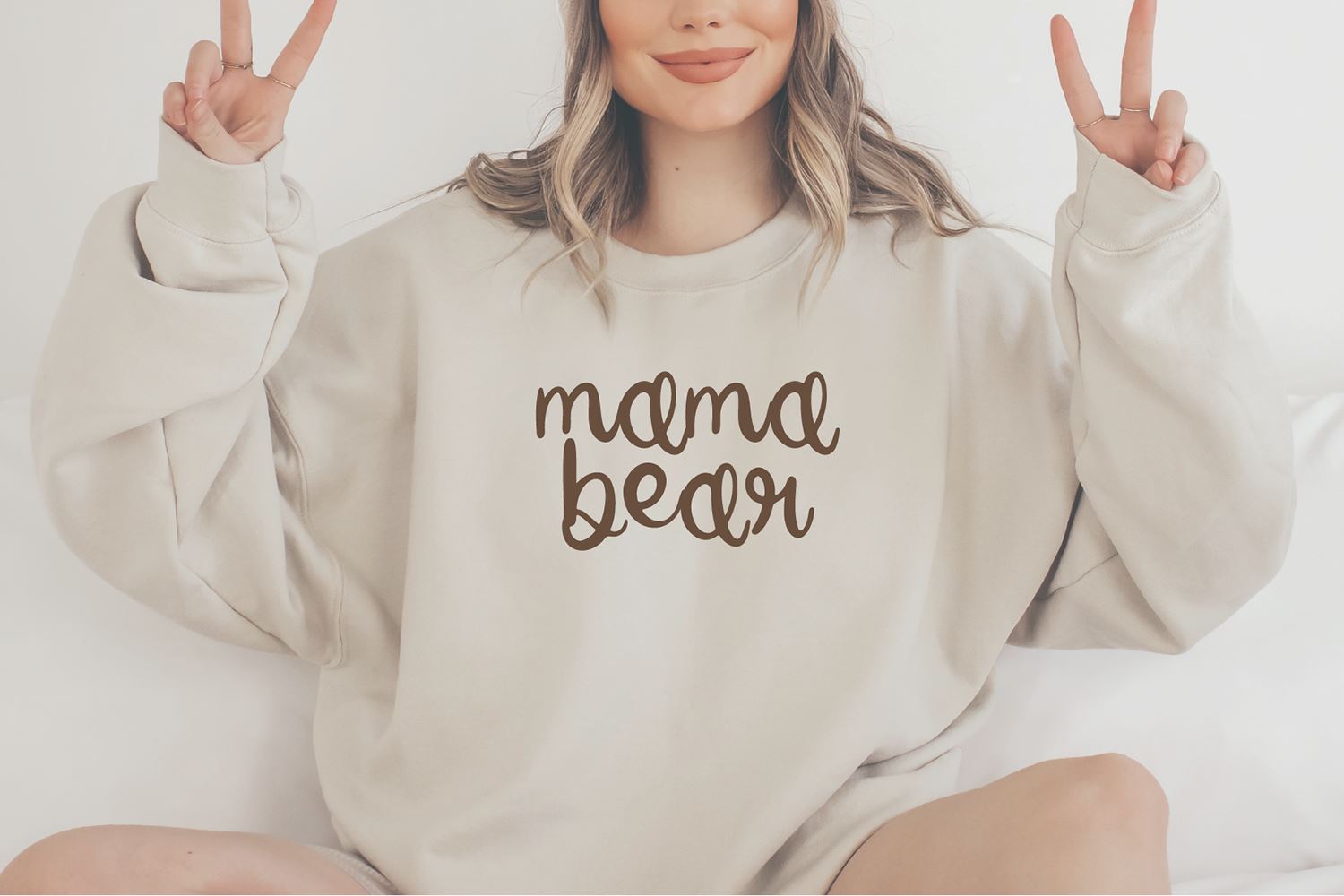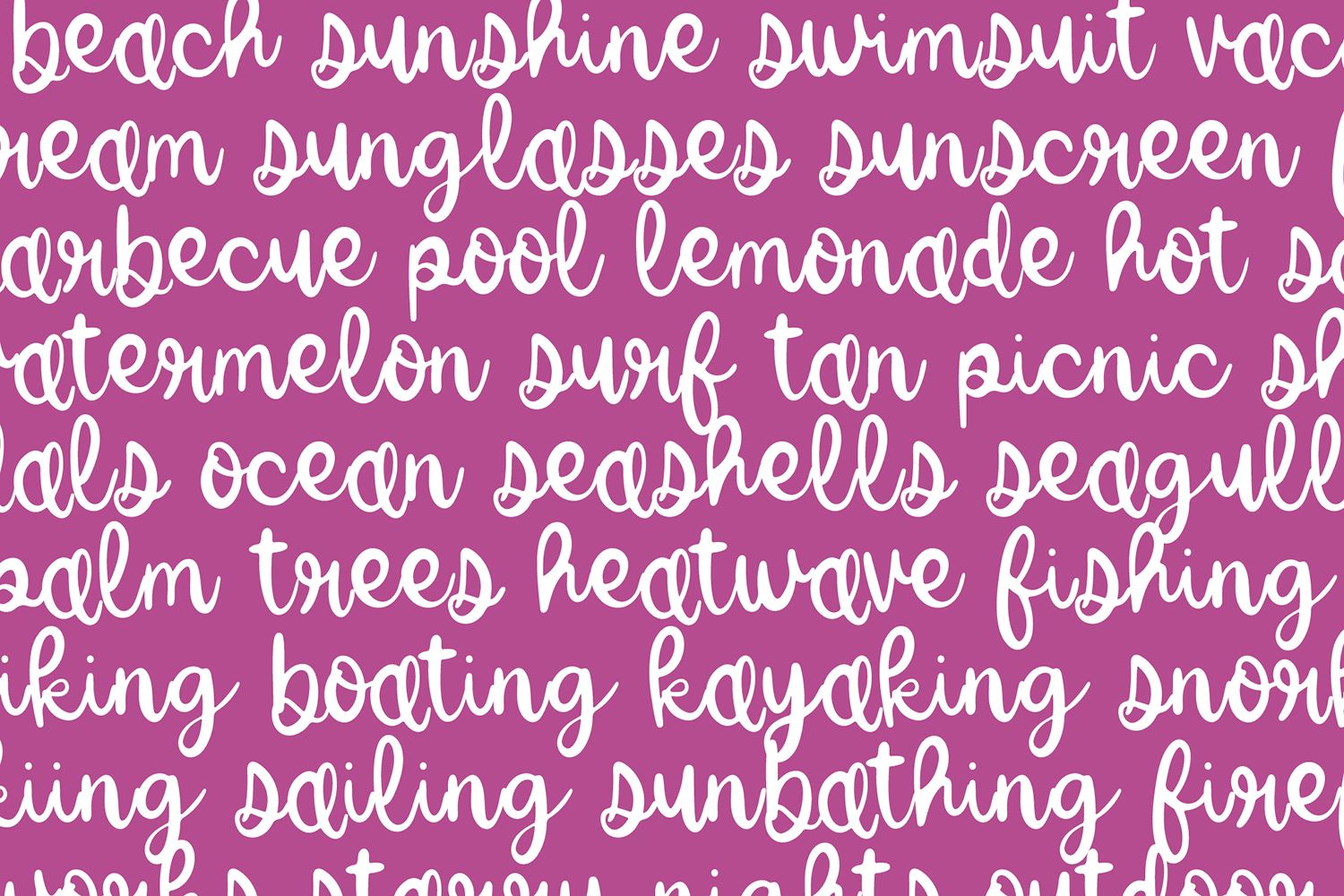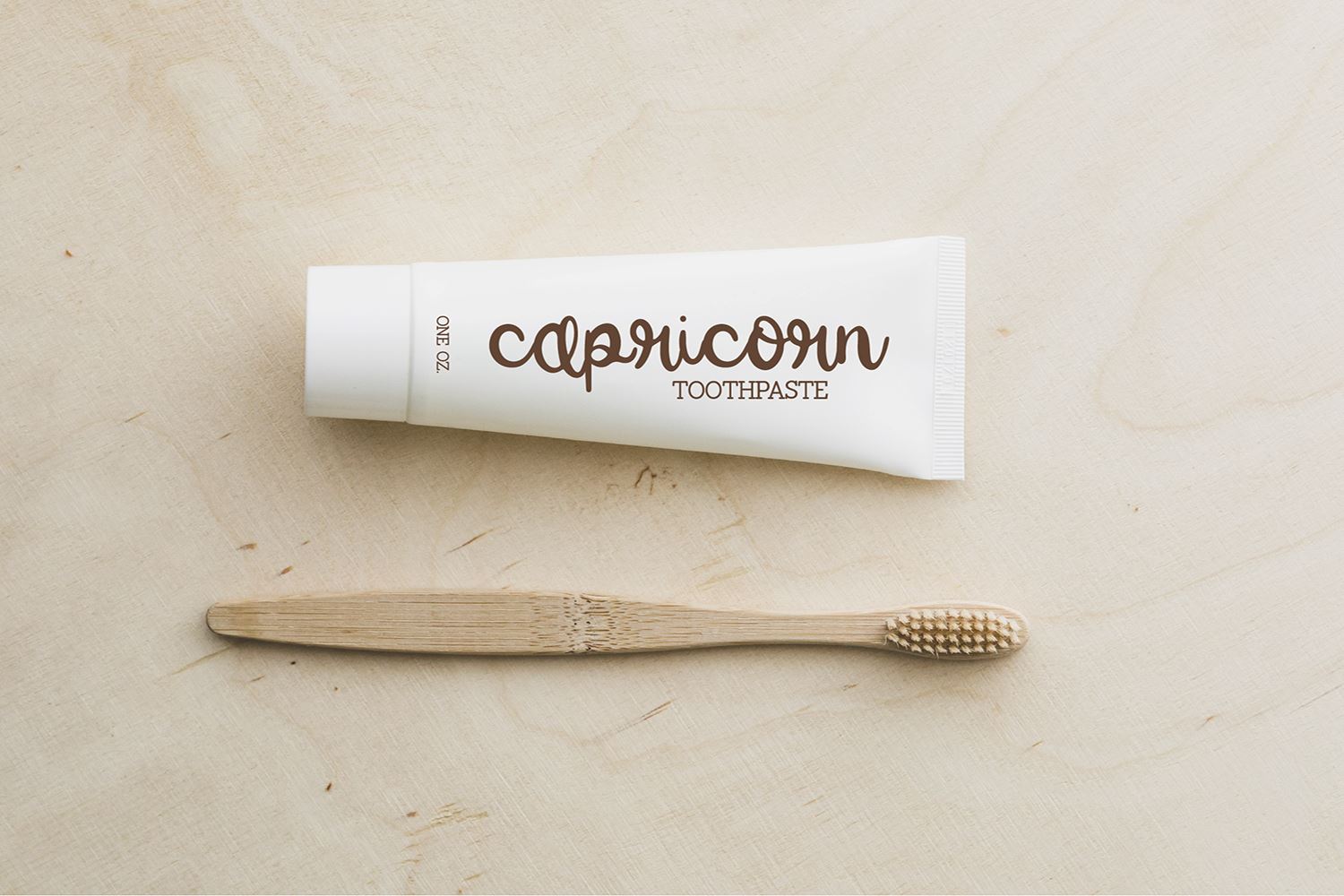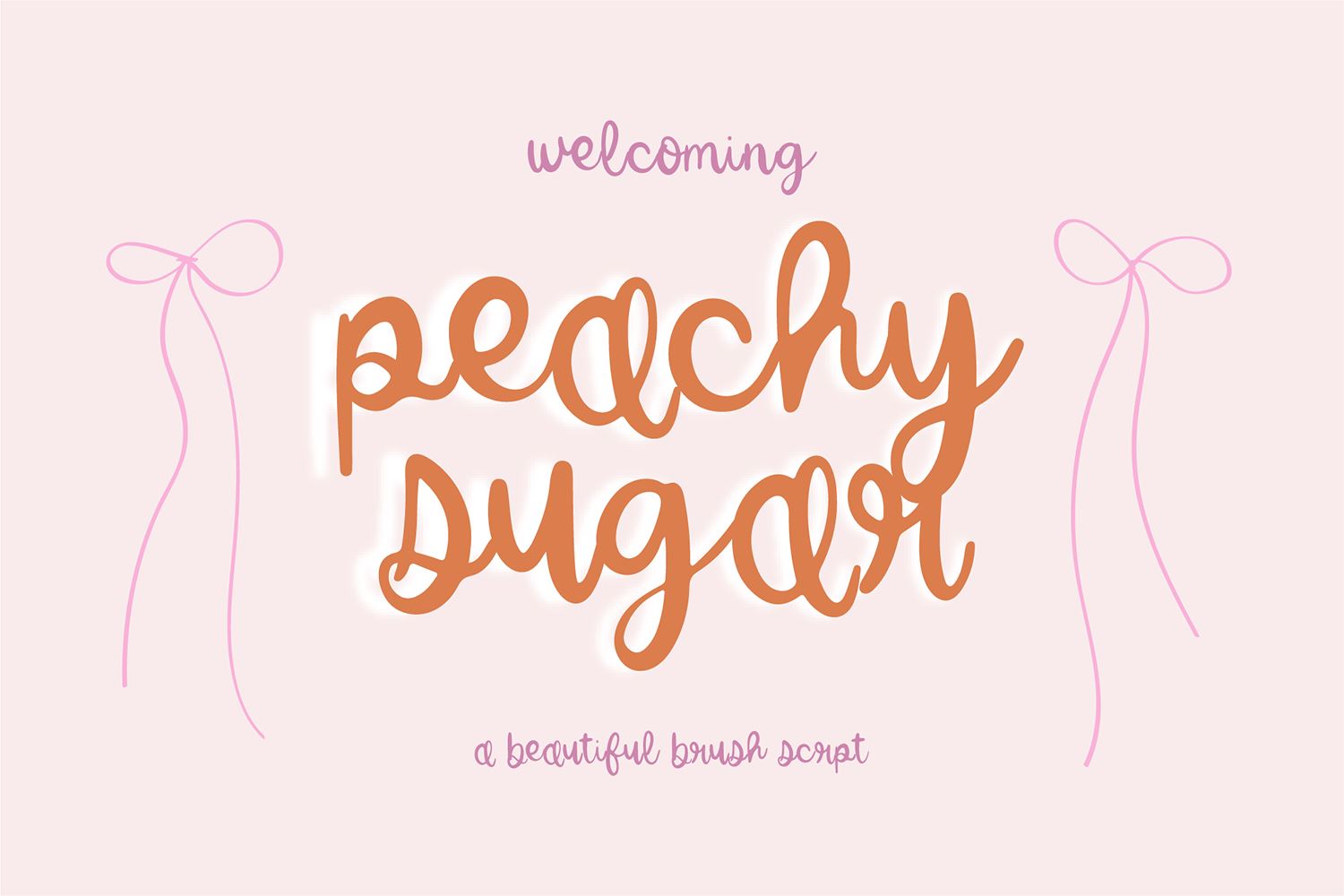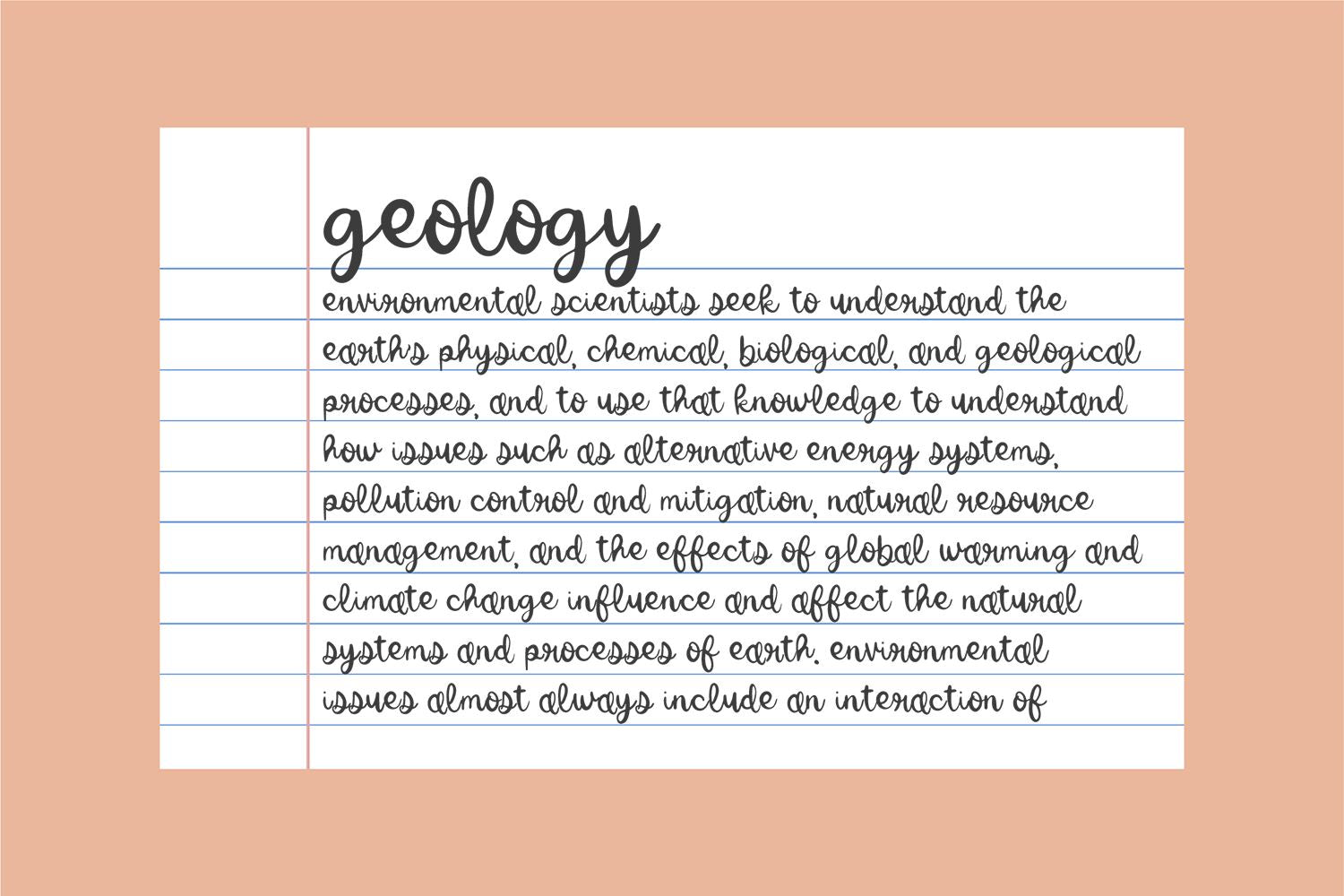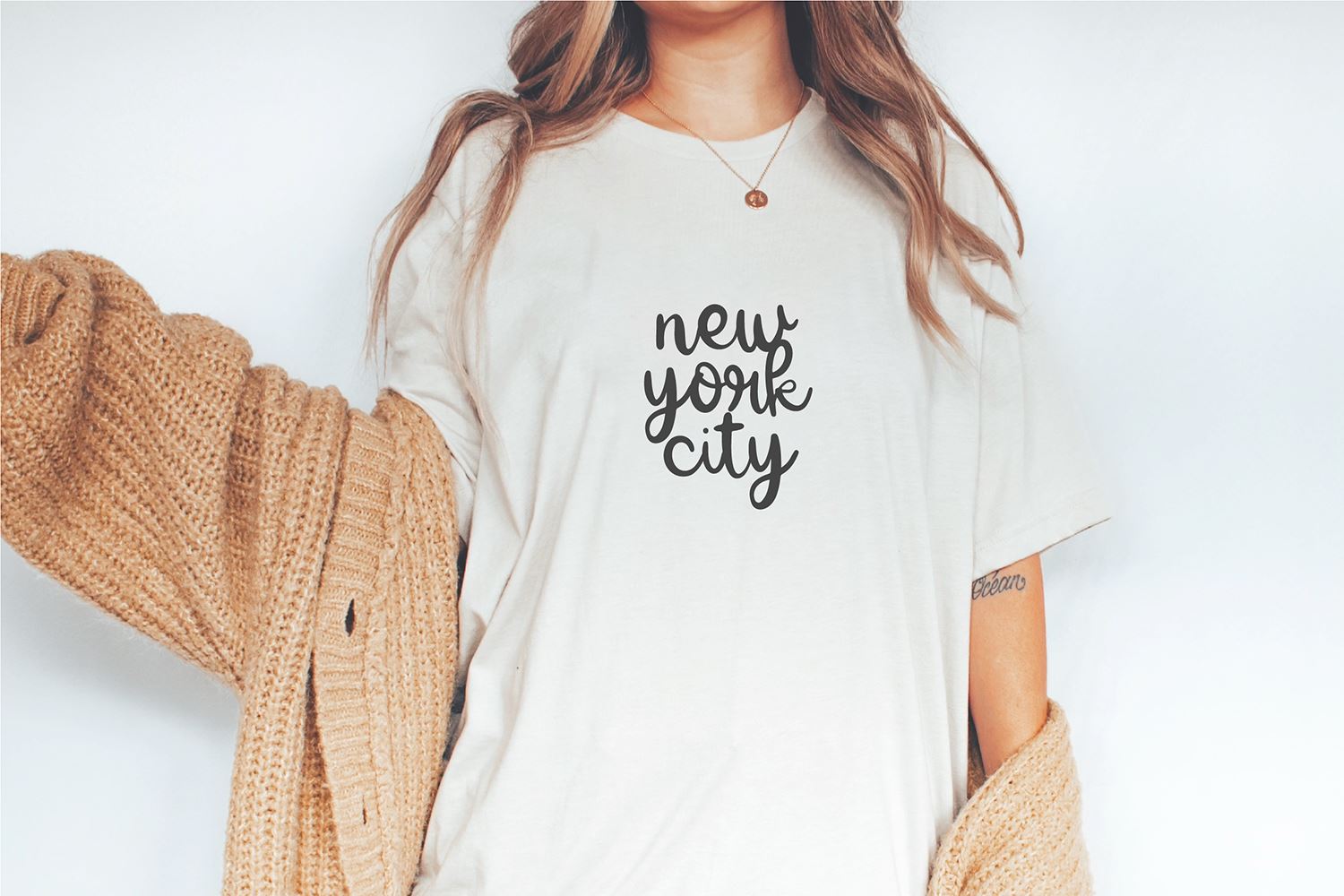
Peachy Sugar Brush Script Font
\”BFC Peachy Sugar\” casual script brush font. This font is a whimsical brush font that is perfect for social media or crafty projects. Use it for branding, crafts for decor, invitations, and more! This font includes all lowercase letters, numbers, and basic punctuation marks. Thanks!